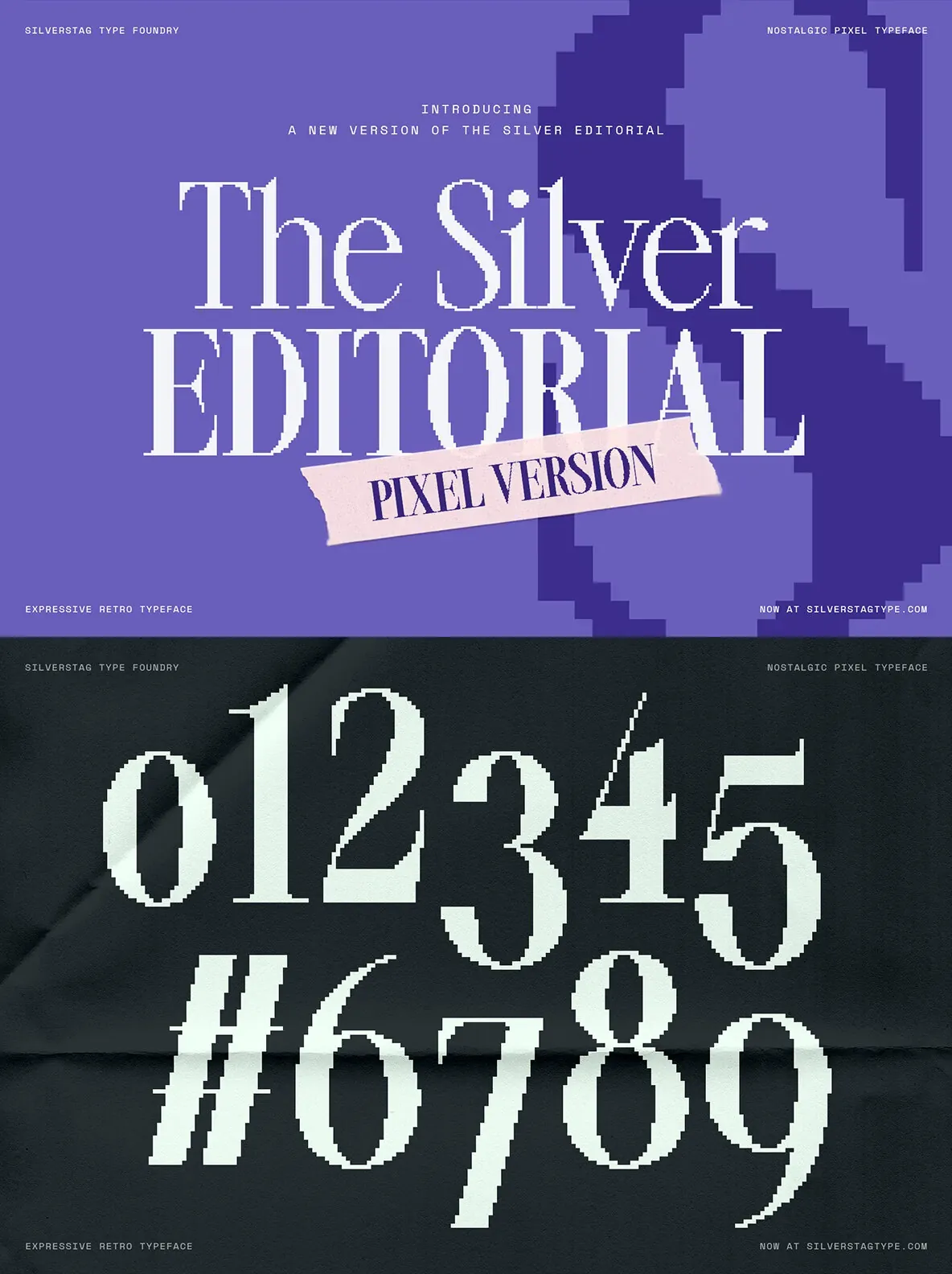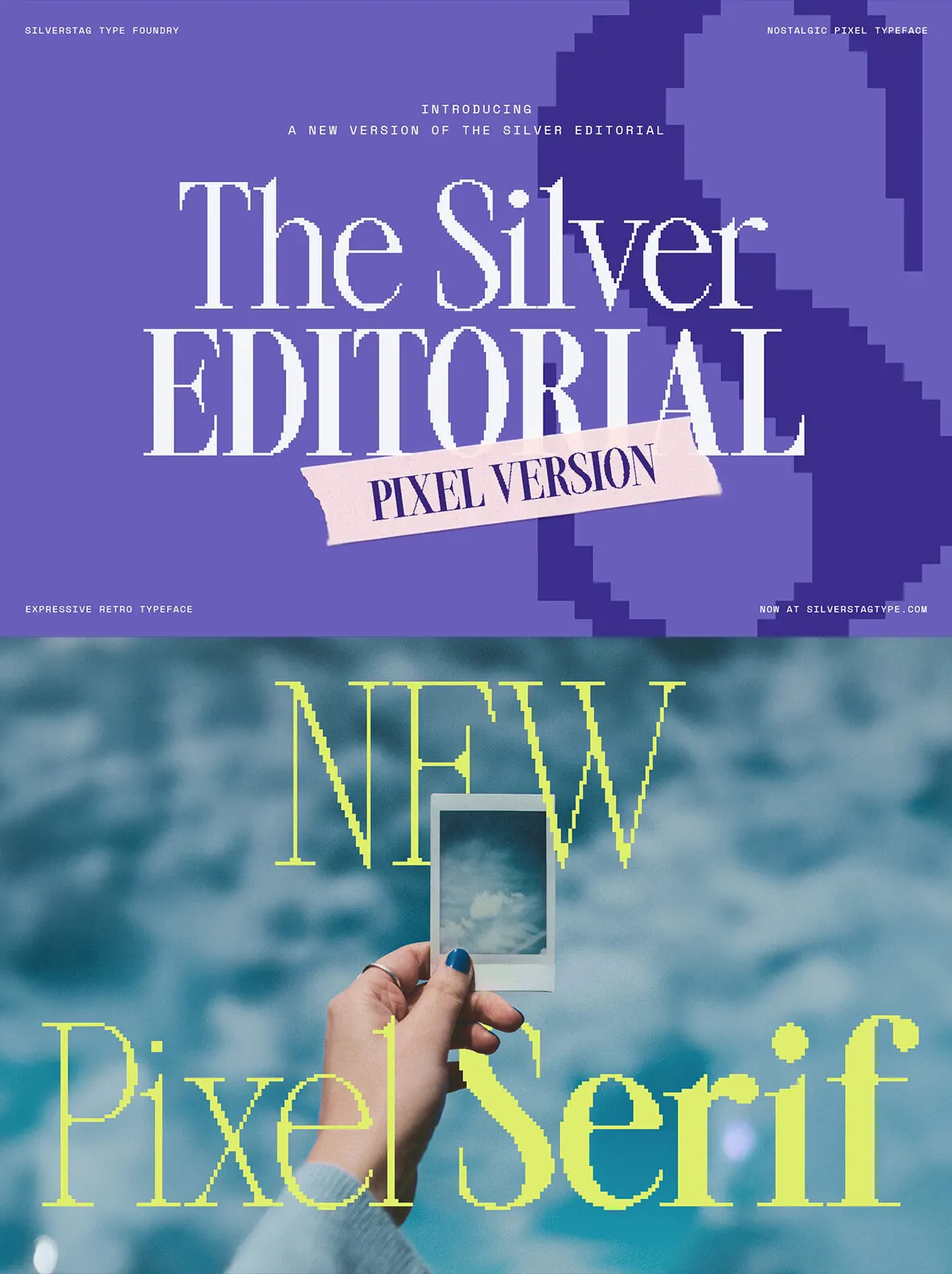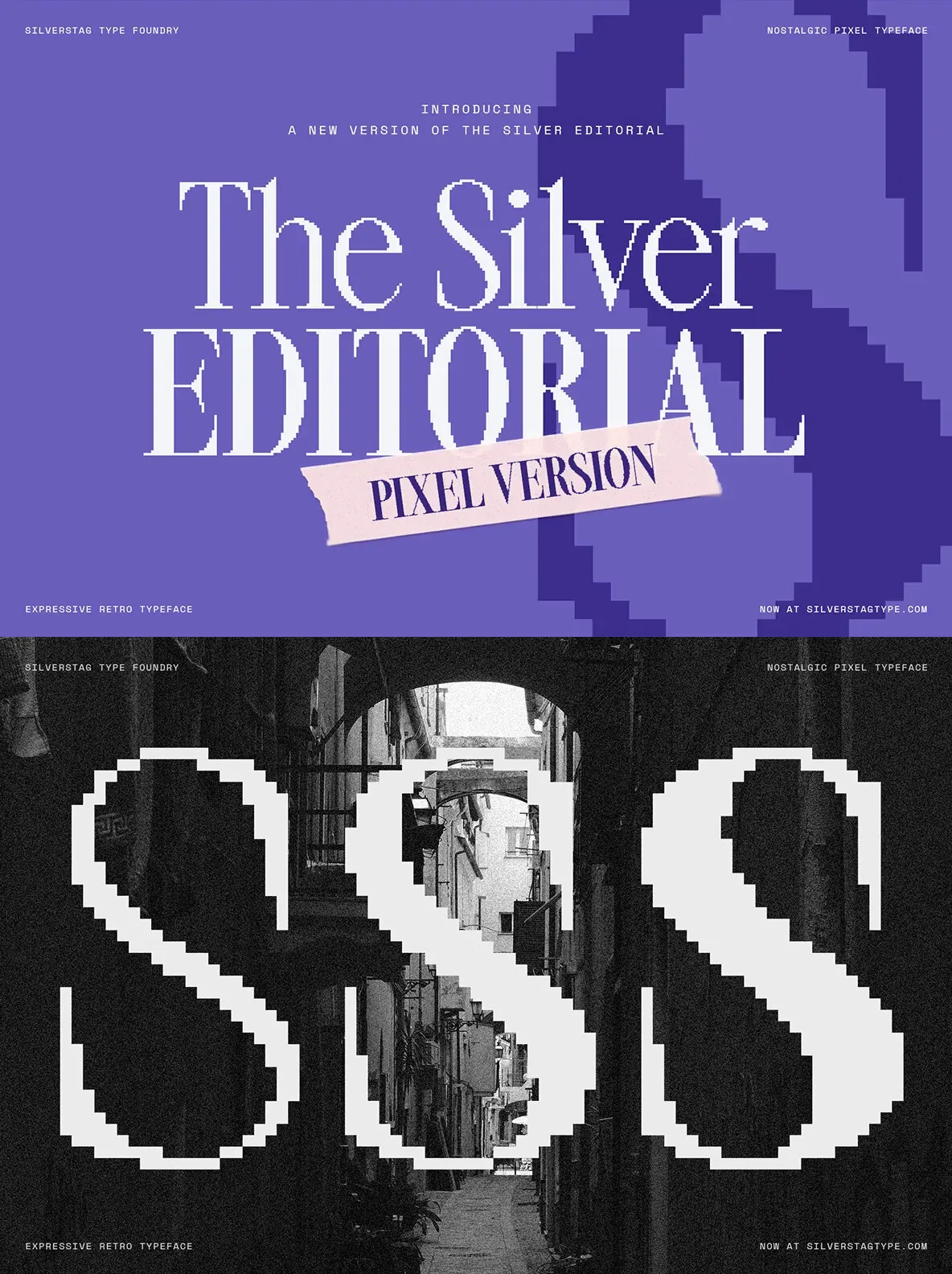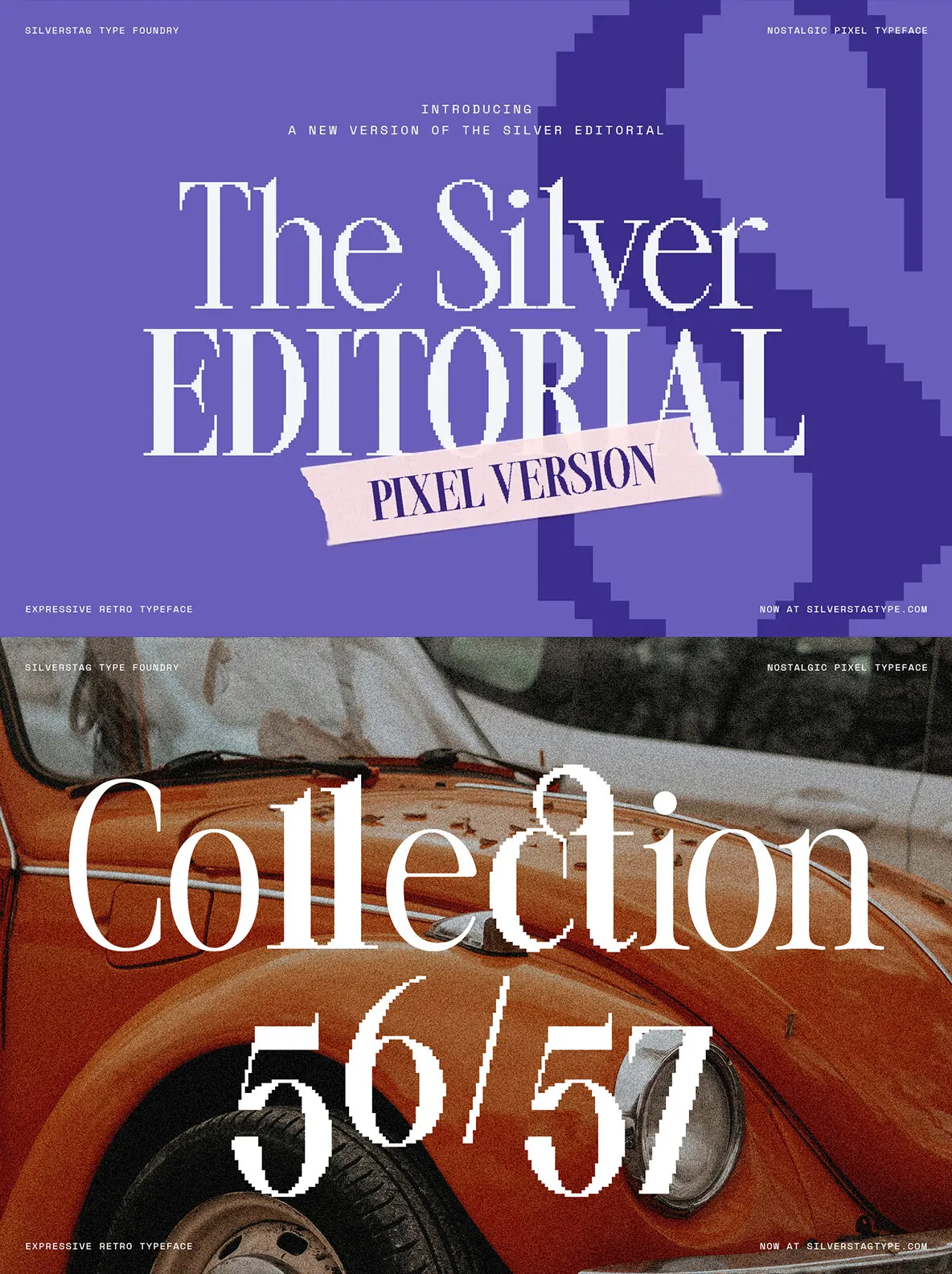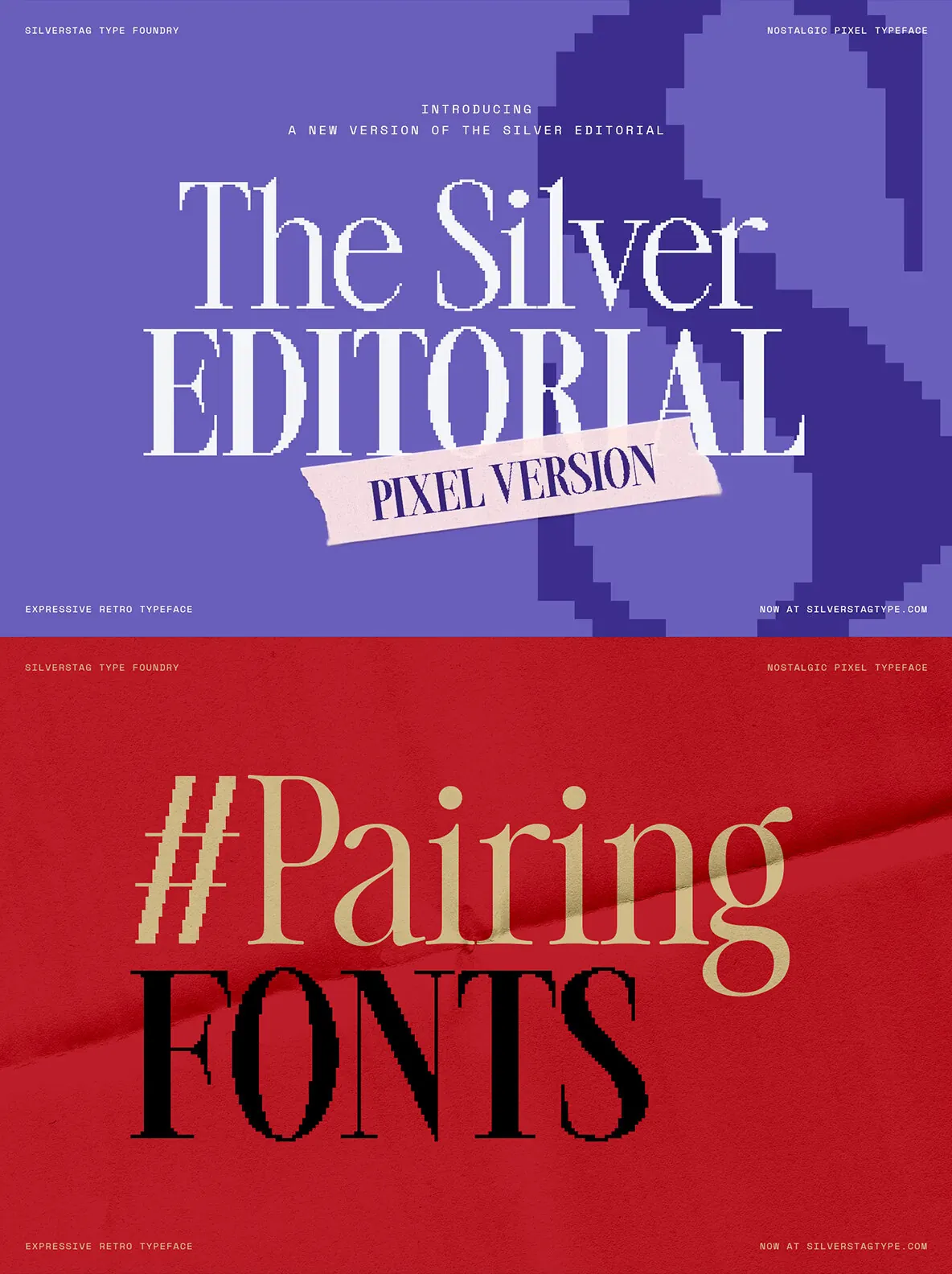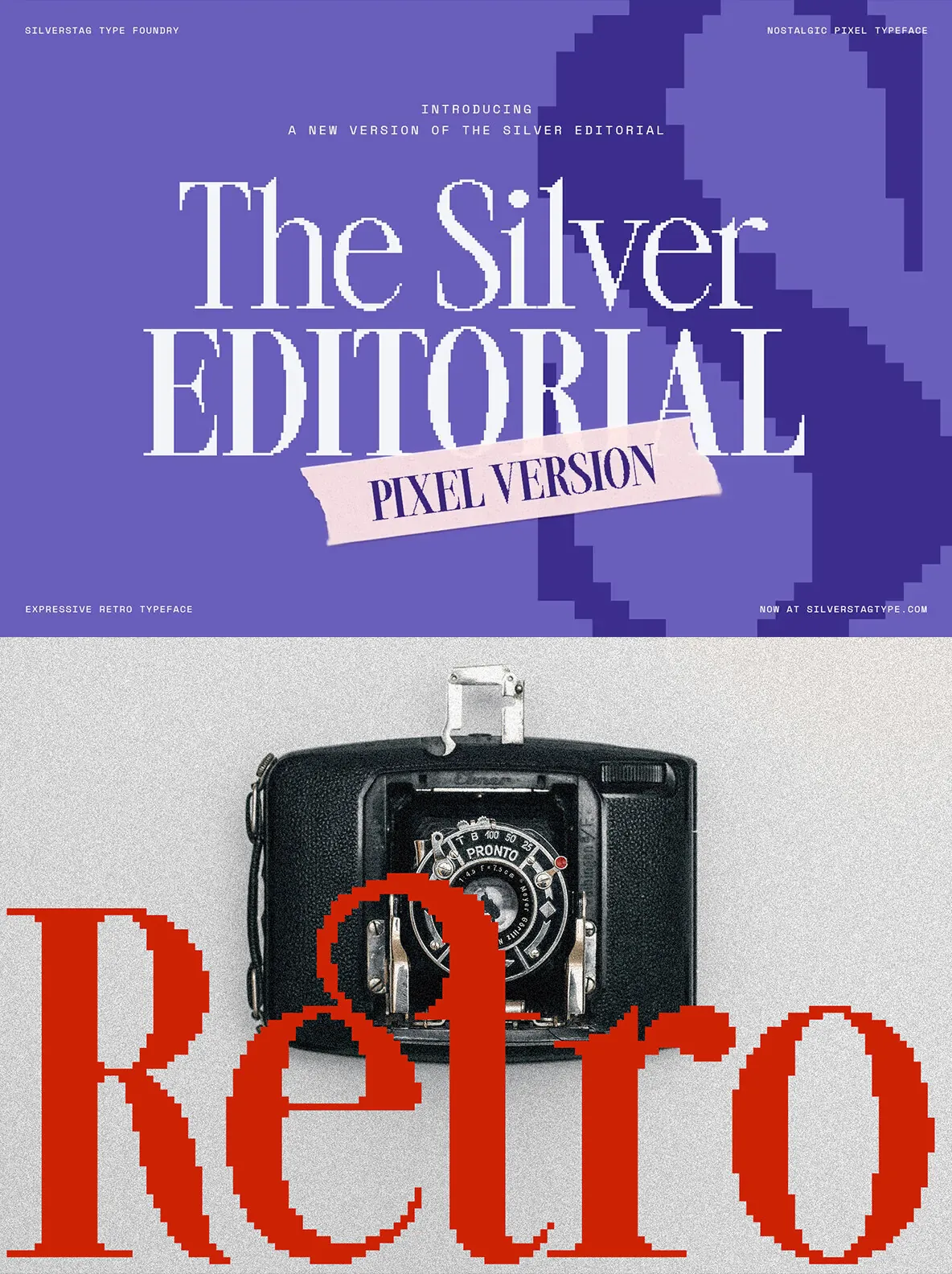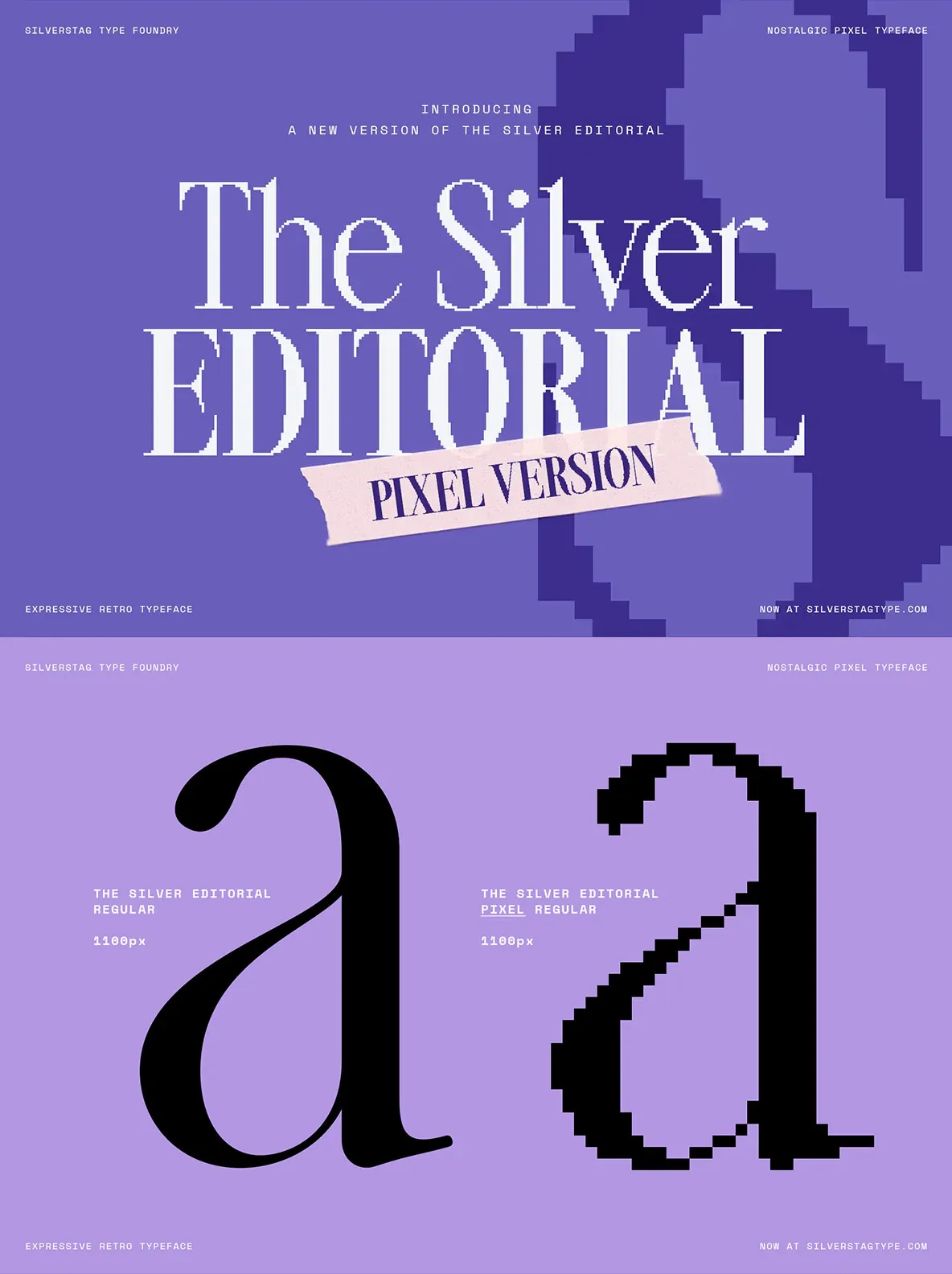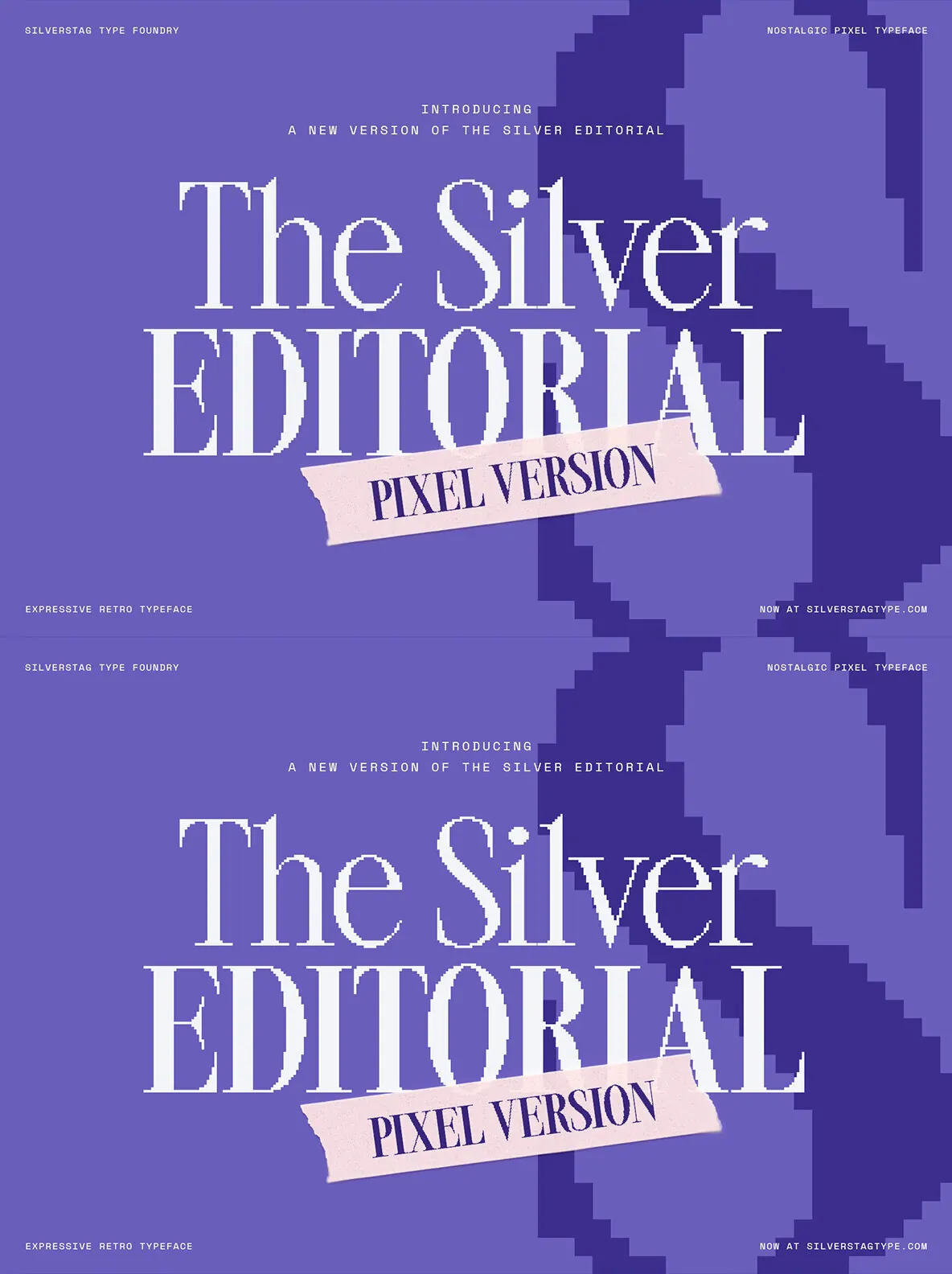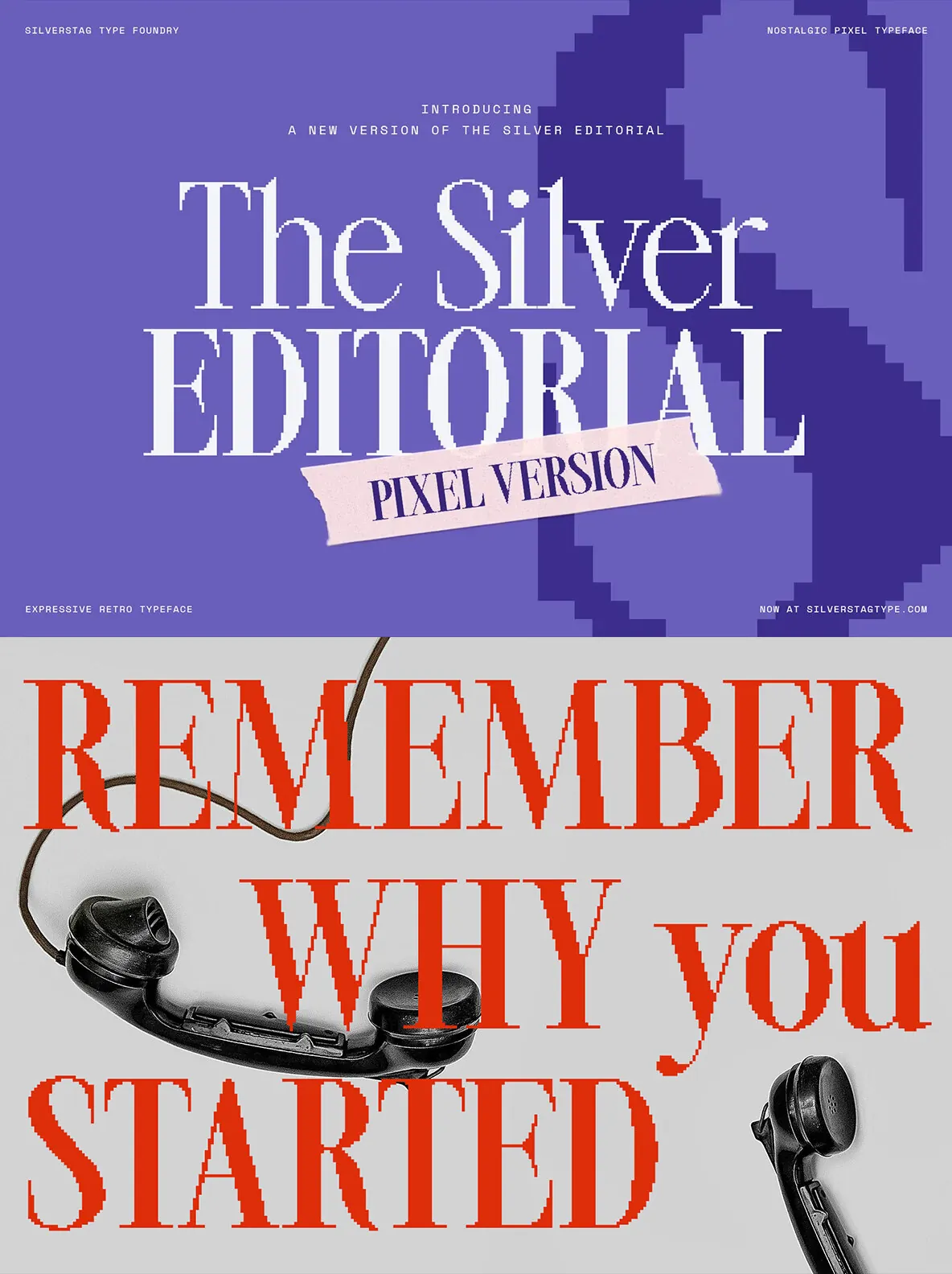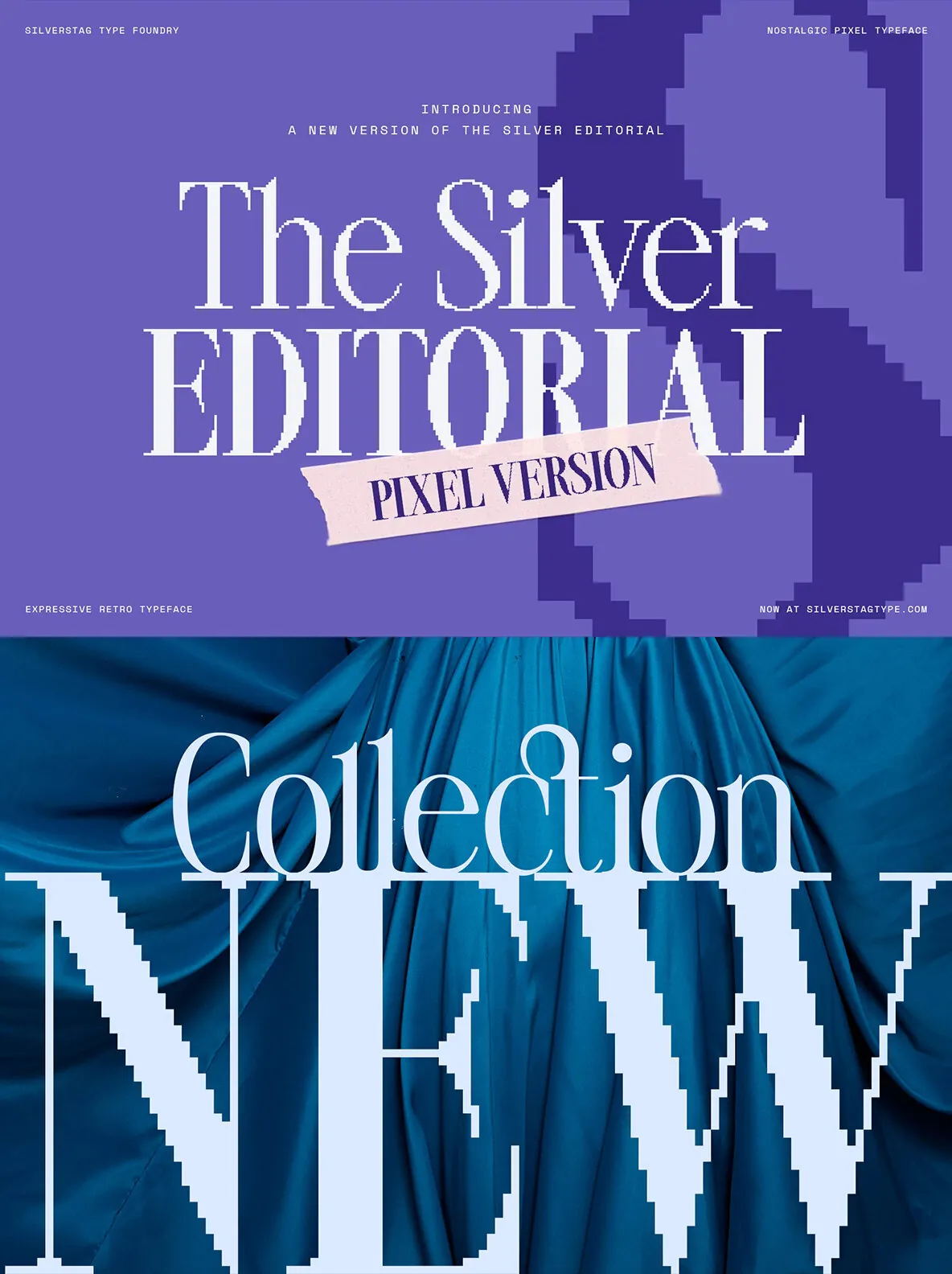
SLTF The Silver Editorial Pixel Version — Editorial Poise, Pixel Bite
SLTF The Silver Editorial Pixel Version pairs the sophistication of a classic editorial serif with the distinct texture of 8-bit pixelation. Designed primarily for bold headlines and premium branding, it delivers a clear contrast that reads confidently while keeping the refined proportions associated with editorial typography. The pixelated detail adds a tactile, nostalgic edge—playful in tone, yet still composed enough for high-end work.
The family includes four fonts: The Silver Editorial Regular as the clean, versatile foundation, plus Pixel Thin, Pixel Regular, and Pixel Black. Together, they support strong typographic hierarchy by placing pixel statements beside crisp editorial text. Use it across posters, packaging, album covers, campaigns, and cohesive brand identities. It also works especially well for logo design and wordmarks, where the pixel cuts bring personality and the Regular style preserves clarity and timelessness.
Four Fonts: Regular, Pixel Thin, Pixel Regular, and Pixel Black
Seamless pairing between pixelated and clean editorial styles
Strong contrast suitable for impactful headlines and branding
Flexible use across fashion, retro, luxury, and modern art direction
Rooted in editorial tradition with a nod to nostalgia, this type family bridges clean typography and pixelated flair with control. It suits projects that need both restraint and boldness, giving contemporary designers a reliable way to balance polish with attitude.